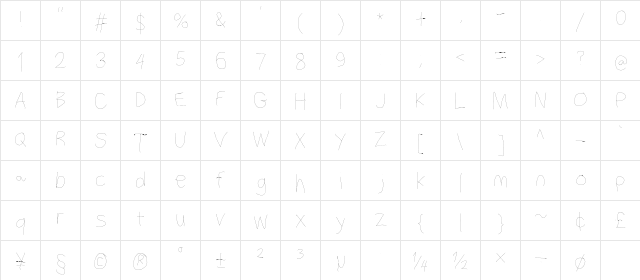
Filament Serie One
Design Context for Filament Serie Typeface
Filament Serie takes a measured approach to typography — its balanced proportions and neutral character make it a reliable workhorse for both digital and print work.